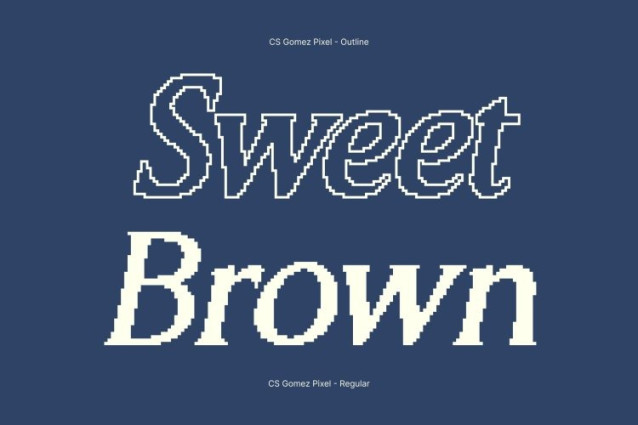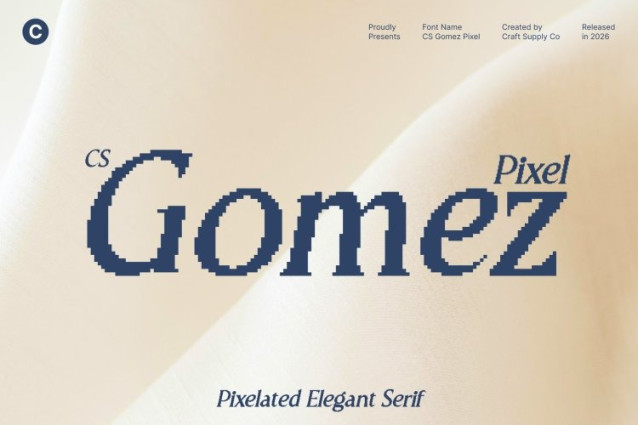
CS Gomez Pixel Font
CS Gomez Pixel Font This is a modern serif font defined by sharp angles, refined proportions, and subtle pixel detailing. Each letterform combines meticulous design with clean geometry, producing a typeface that feels both sophisticated and digitally polished. Its balance of elegance and structure makes it ideal for projects that demand professionalism with modern flair.
Sleek Pixel Geometry for Refined Expression
Crisp angular details provide strength and precision, while the pixel-aligned serifs maintain graceful flow. This combination of sharpness and poise gives text a subtle dynamic rhythm, allowing your designs to communicate clarity, authority, and contemporary sophistication.
Ideal for Luxury, Editorial, and Professional Branding
This font excels in luxury branding, editorial layouts, corporate identities, and high-end visual communications. Use it for logos, packaging, magazine covers, or premium advertising to establish a confident, refined impression that resonates with style and elegance.
Elegant Typography with a Modern Digital Edge
More than just a serif, this font embodies modern craftsmanship and digital finesse. The interplay of bold serif precision and clean pixel geometry gives it distinctive character, making it perfect for designers who value elegance, confidence, and timeless appeal in every project.